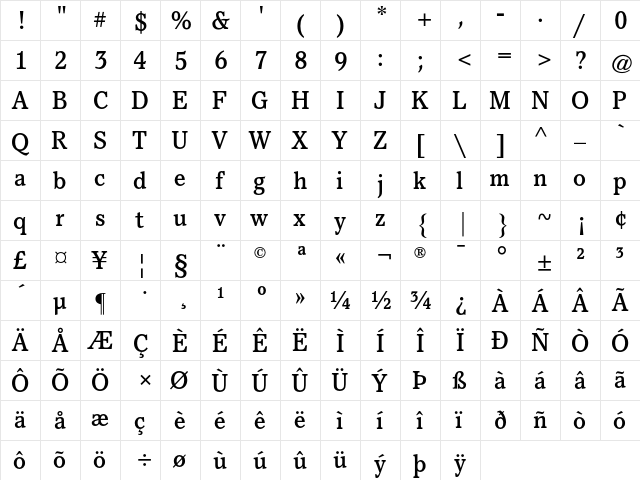
ATPacella Regular
Design Context for ATPacella Typeface
ATPacella takes a measured approach to typography — its balanced proportions and neutral character make it a reliable workhorse for both digital and print work.